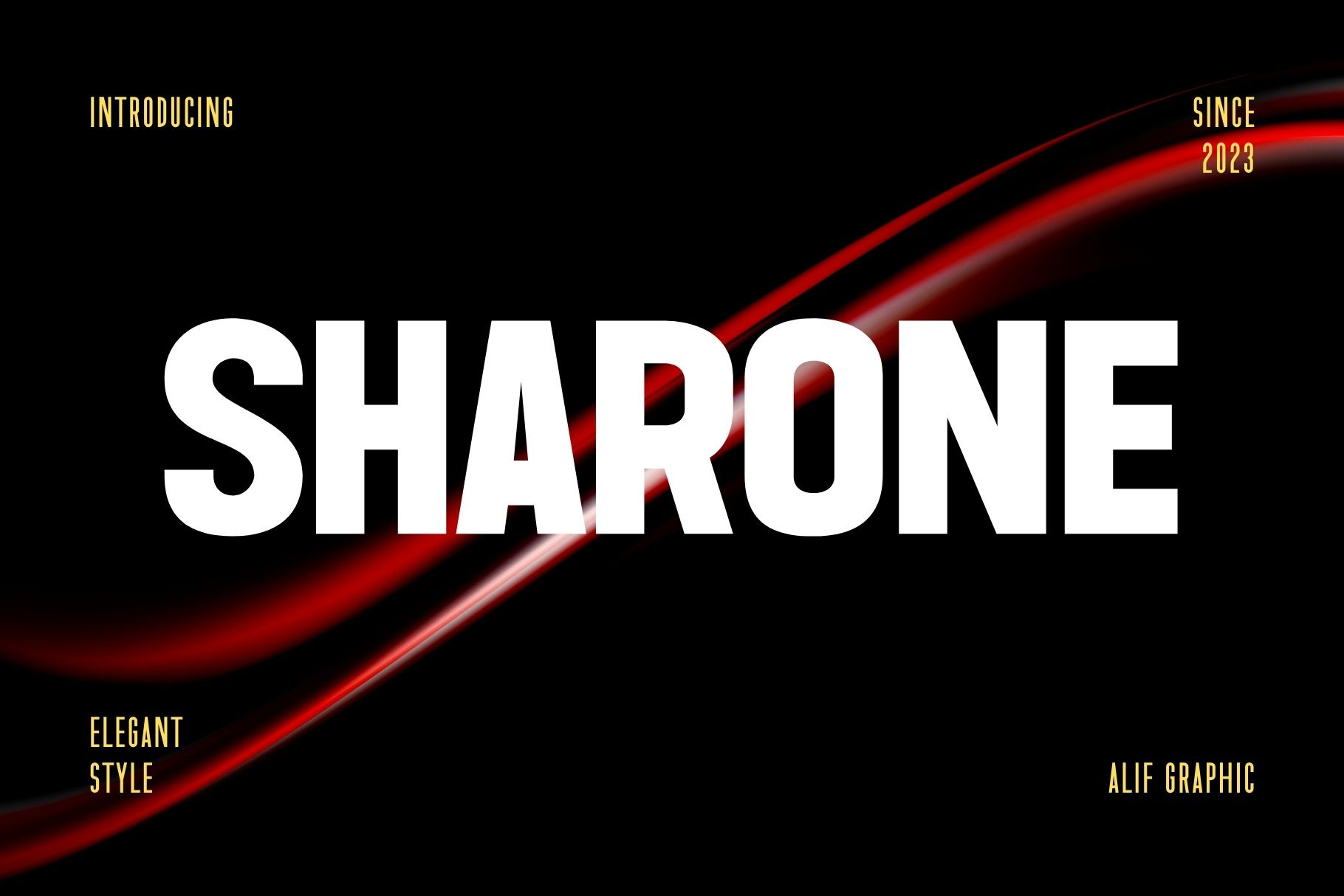
Sharone - Modern Sans Typeface
Introducing 'Sharone' Font:
Introducing "Sharone" – a simple, bold, all-caps display font designed to command attention with its clean and powerful design. Tailored for making a bold statement in headlines, posters, or branding, Sharone delivers a straightforward and impactful visual presence. Its simplicity ensures versatility, making it an excellent choice for various design projects where clarity and strength are paramount. Elevate your typography with Sharone for a sleek and confident aesthetic that leaves a lasting impression.
Ideal for:
- Posters
- Apparel Designs
- Advertising Campaigns
- Visual Identity Projects
- Social Media Designs
- Ready for Creative Expression
- Immaculately Crafted Letters